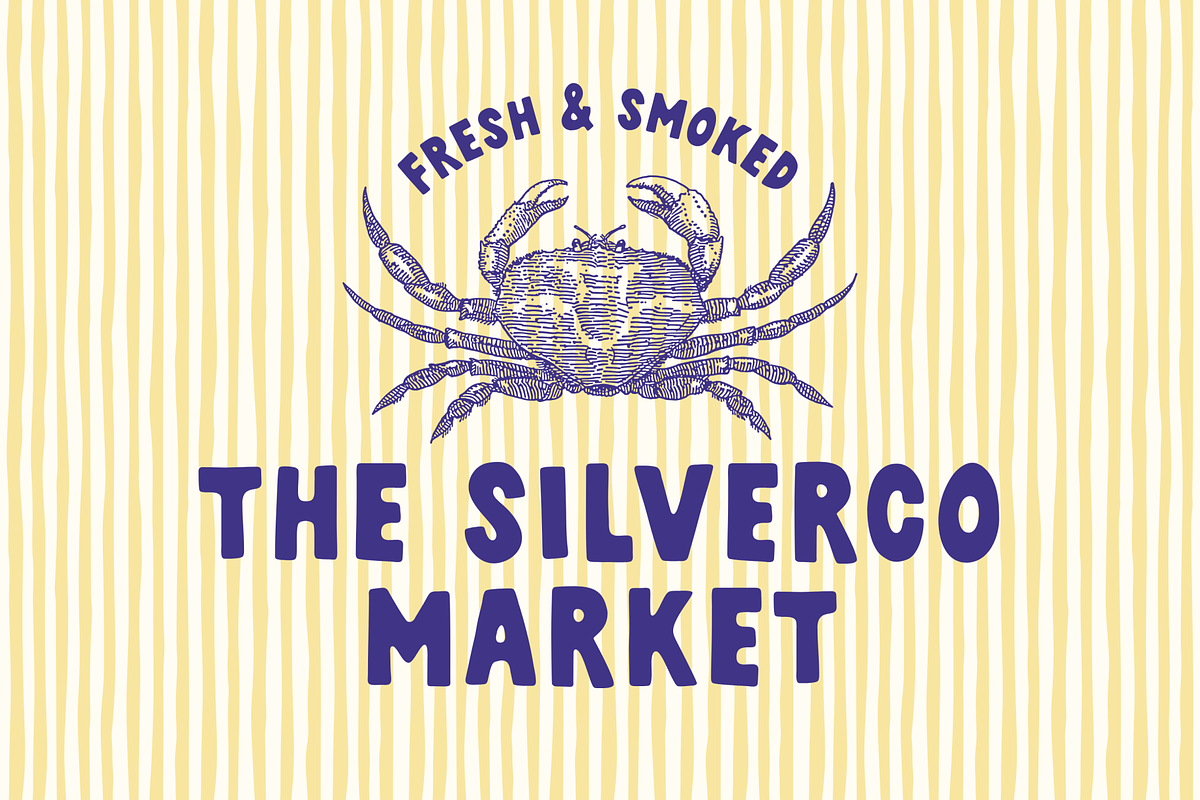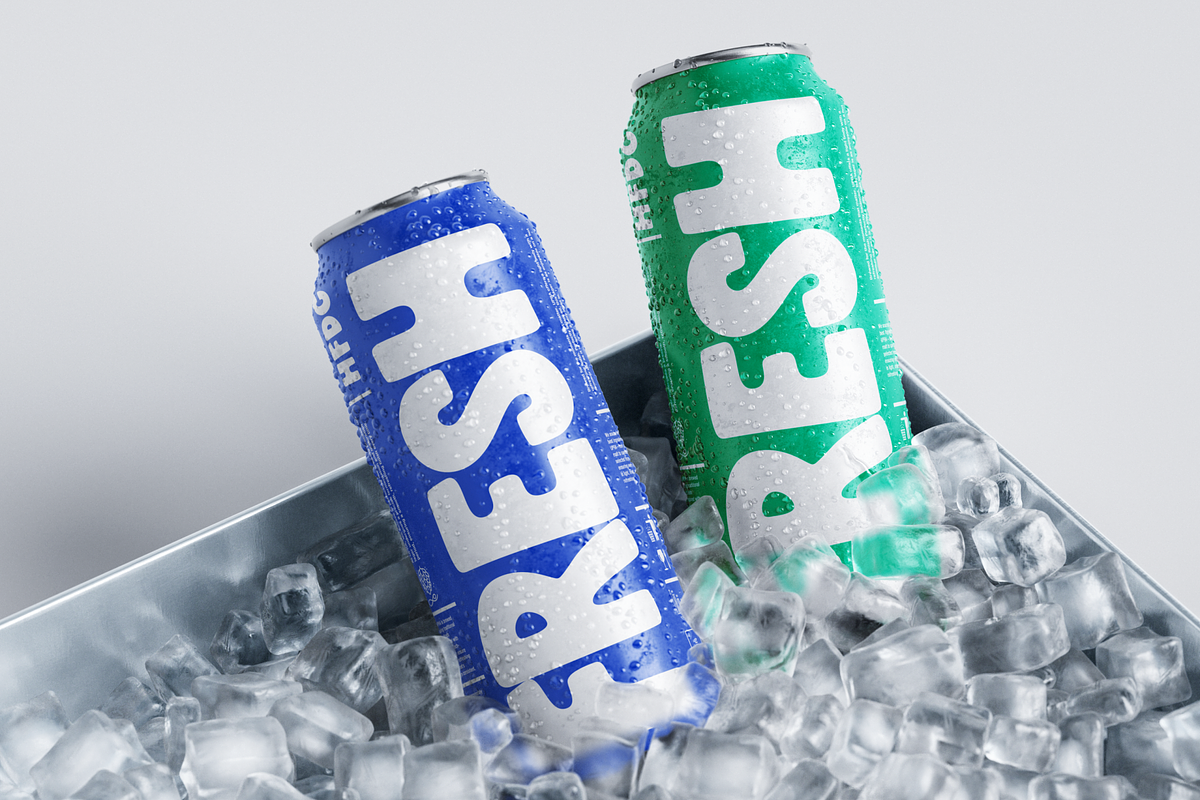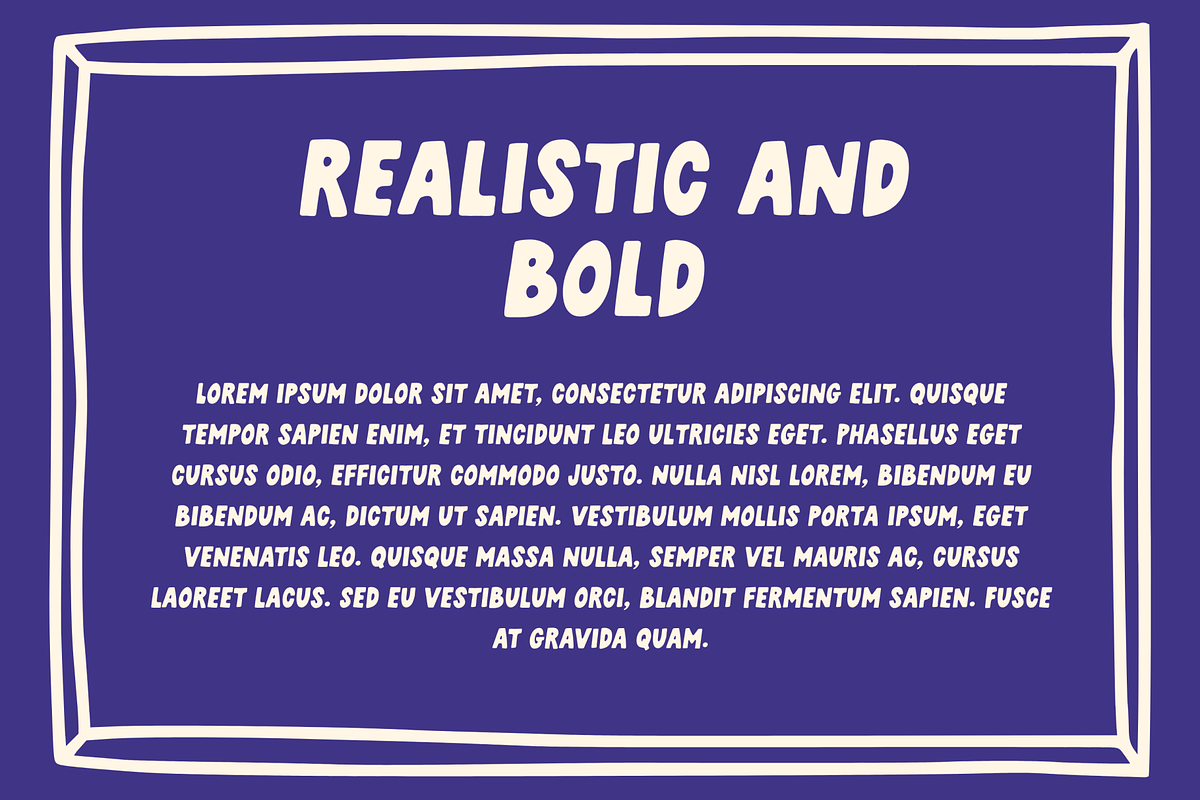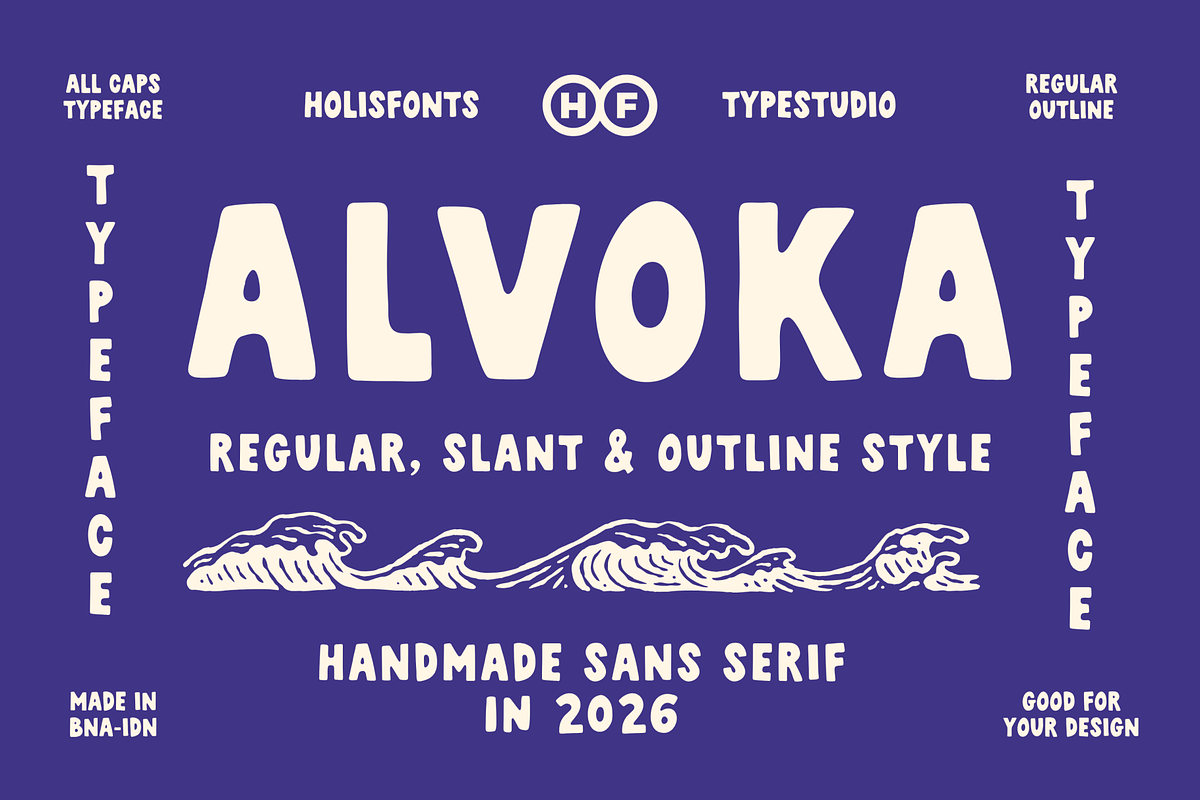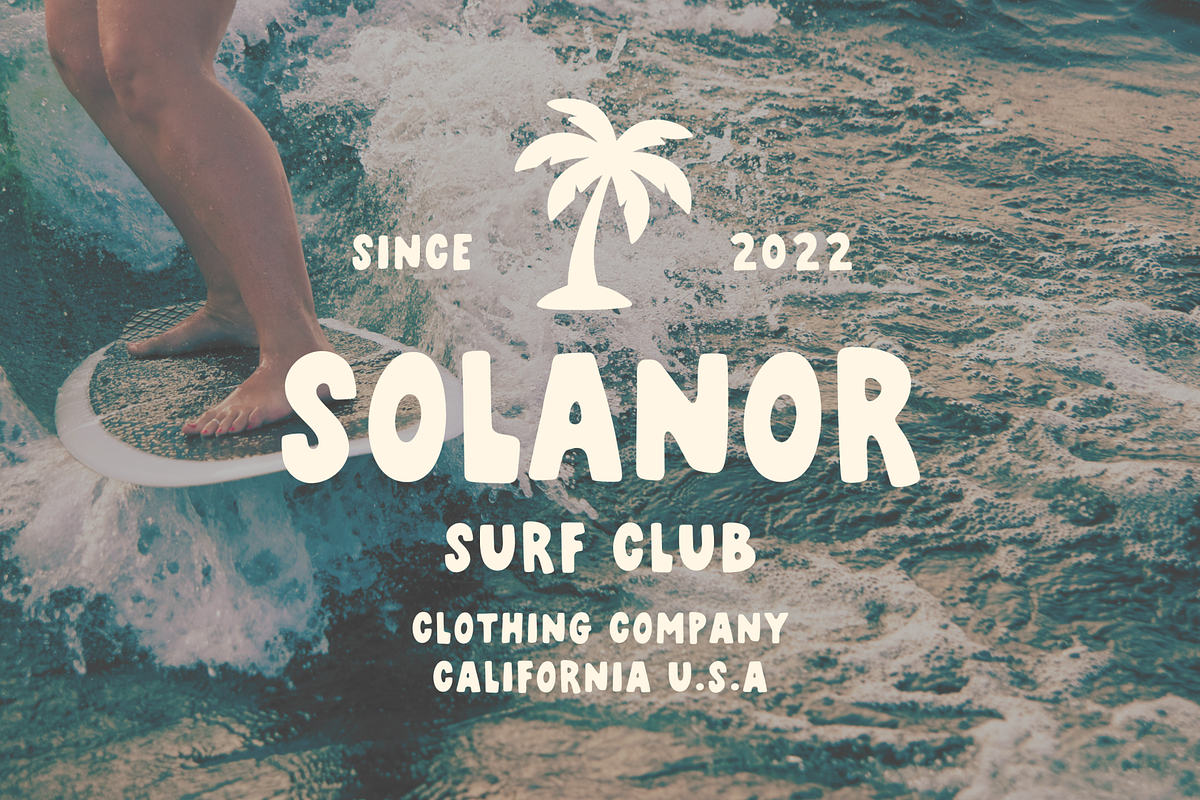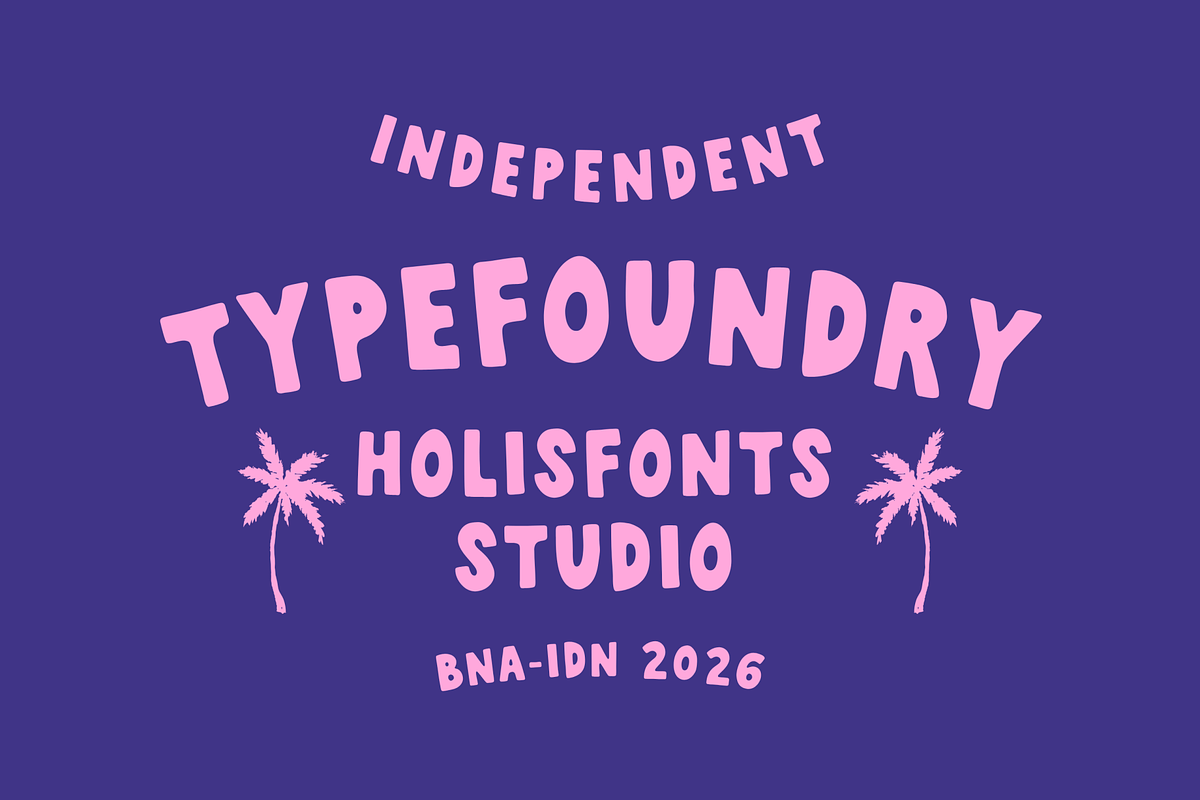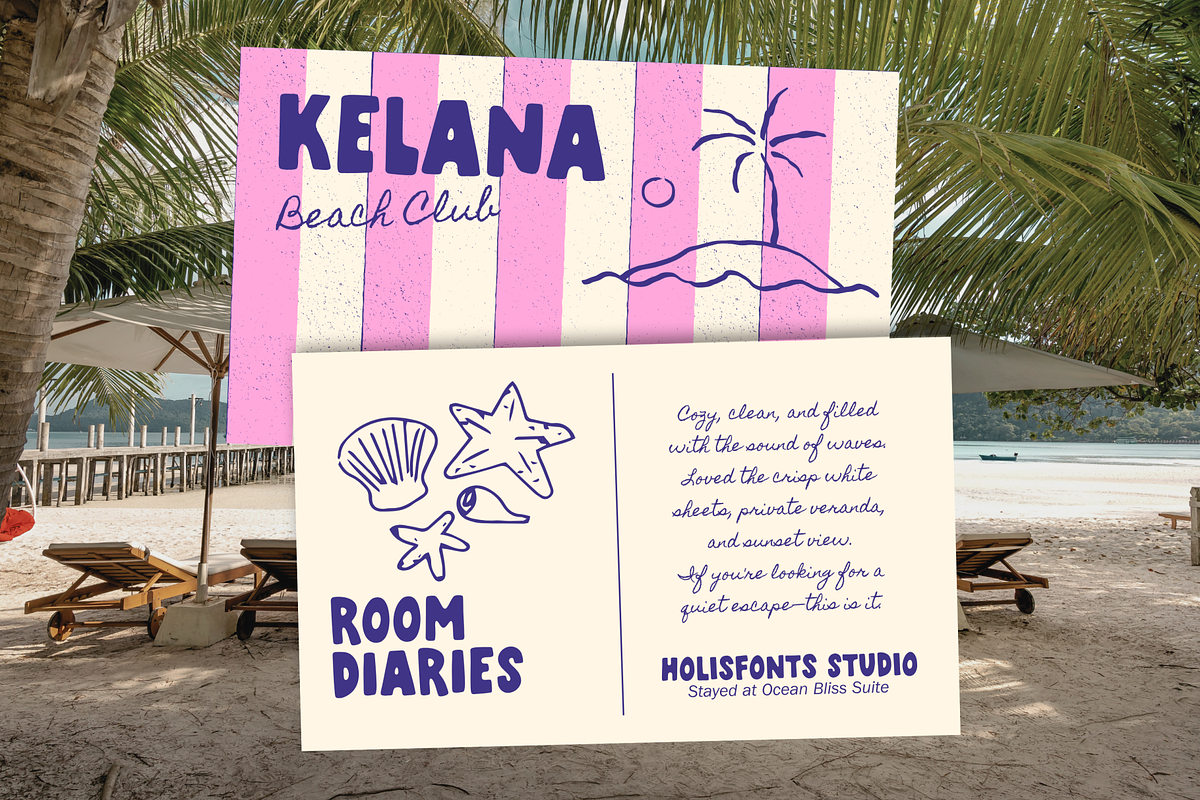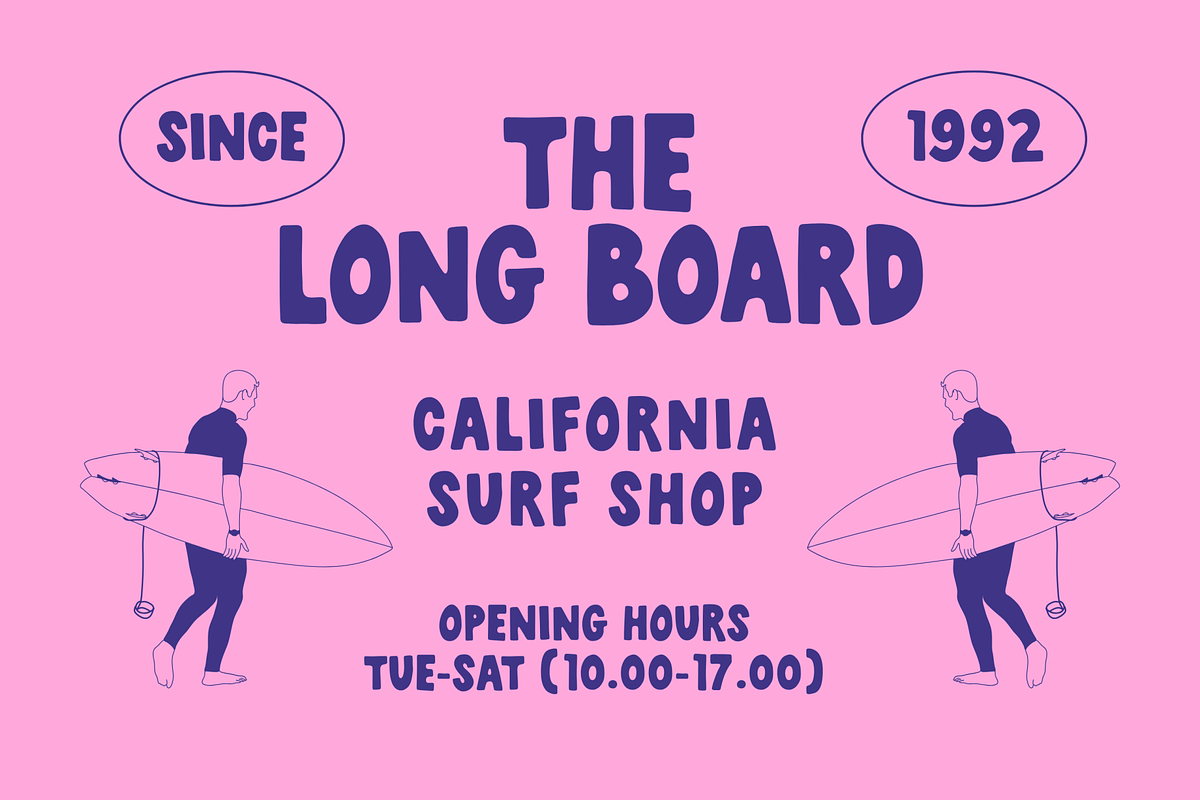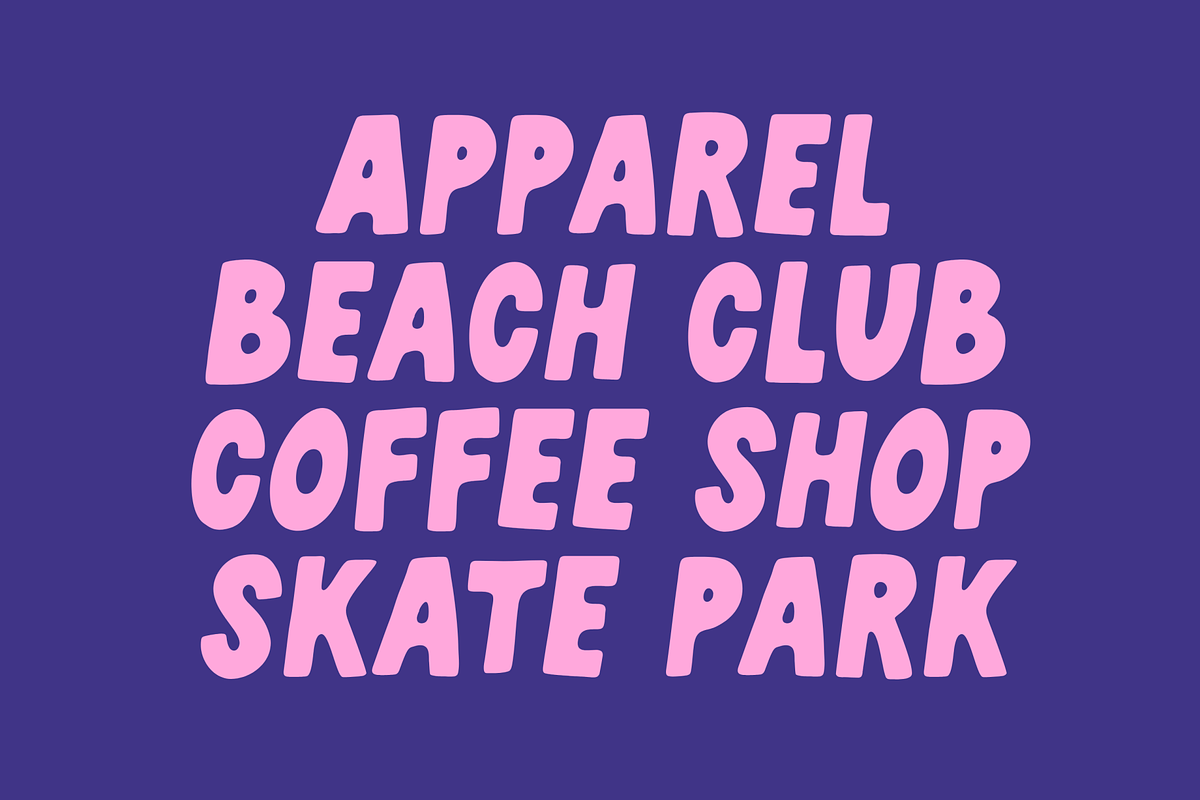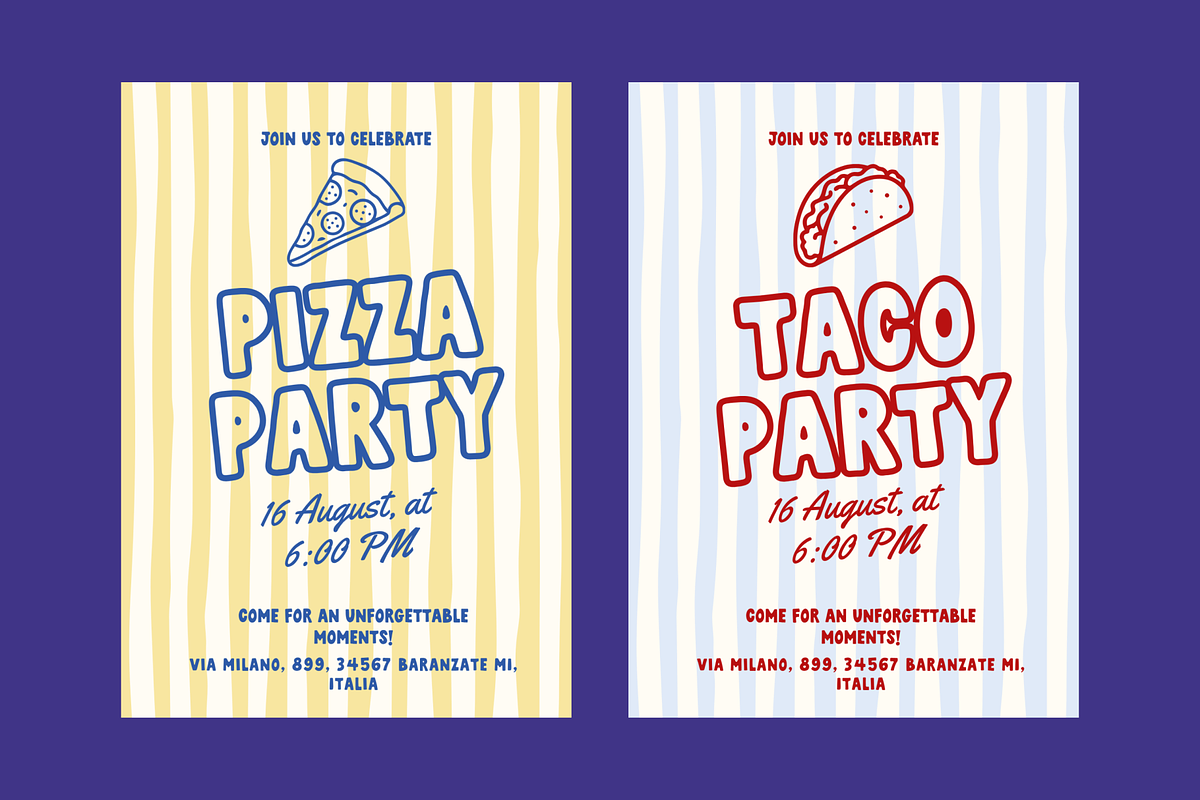
Alvoka Bold Hand Drawn Sans Serif
Alvoka a playful, bold, and entirely hand-drawn sans-serif typeface designed to bring an organic, friendly energy to your creative projects. Crafted with a cheerful character, Alvoka is perfect for designs that need a warm, artisanal touch.
Alvoka Features:
4 Versatile Styles: Regular, Slant, Outline, and Slant Outline
All Caps Display: Bold and highly legible uppercase characters
Complete Set: Includes numbers, extensive punctuation, and currency symbols
Multilingual Support: Ready for global design applications
Handcrafted Aesthetic: Adds a charming, imperfect look to your layout
Best Use Cases:
Ideal for casual branding, apparel design, food and beverage packaging (menus, coffee shops, seafood markets), posters, party invitations, merchandise, beach-themed designs, and expressive social media graphics